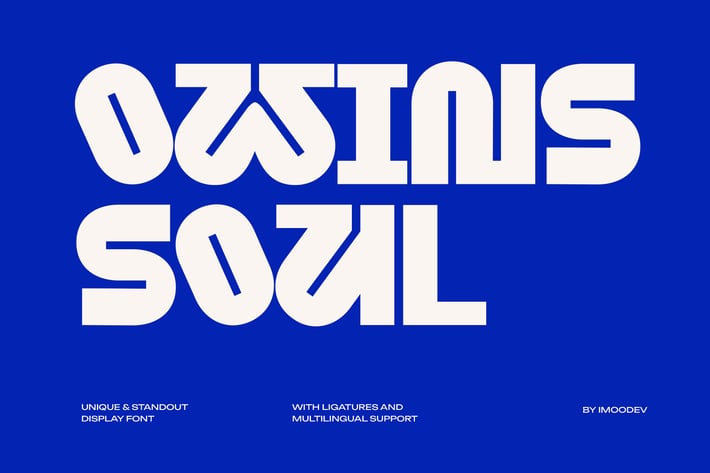
Owins Soul - Playful & Standout Display Font
Owins Soul is a extra bold and modern playful font that is designed to make a statement. This font is a powerful tool for designers looking to add a touch of modern fun and geometric flair to their projects. The letterforms are characterized by their thick, chunky, and consistent stroke weight, creating a commanding presence on the page.
Owins Soul conveys a sense of energy and playfulness, making it ideal for posters, banners, headlines, branding, social media graphics, logotypes, motion graphics, visual identity design, product mockup, sticker, merchandise, packaging, and any project that needs to stand out with confidence and a cheerful spirit.
- Uppercase and Lowecase Characters.
- PUA Encoded Characters.
- Numerals and Punctuations.
- Alternates and Ligatures.
- Multilingual Support.